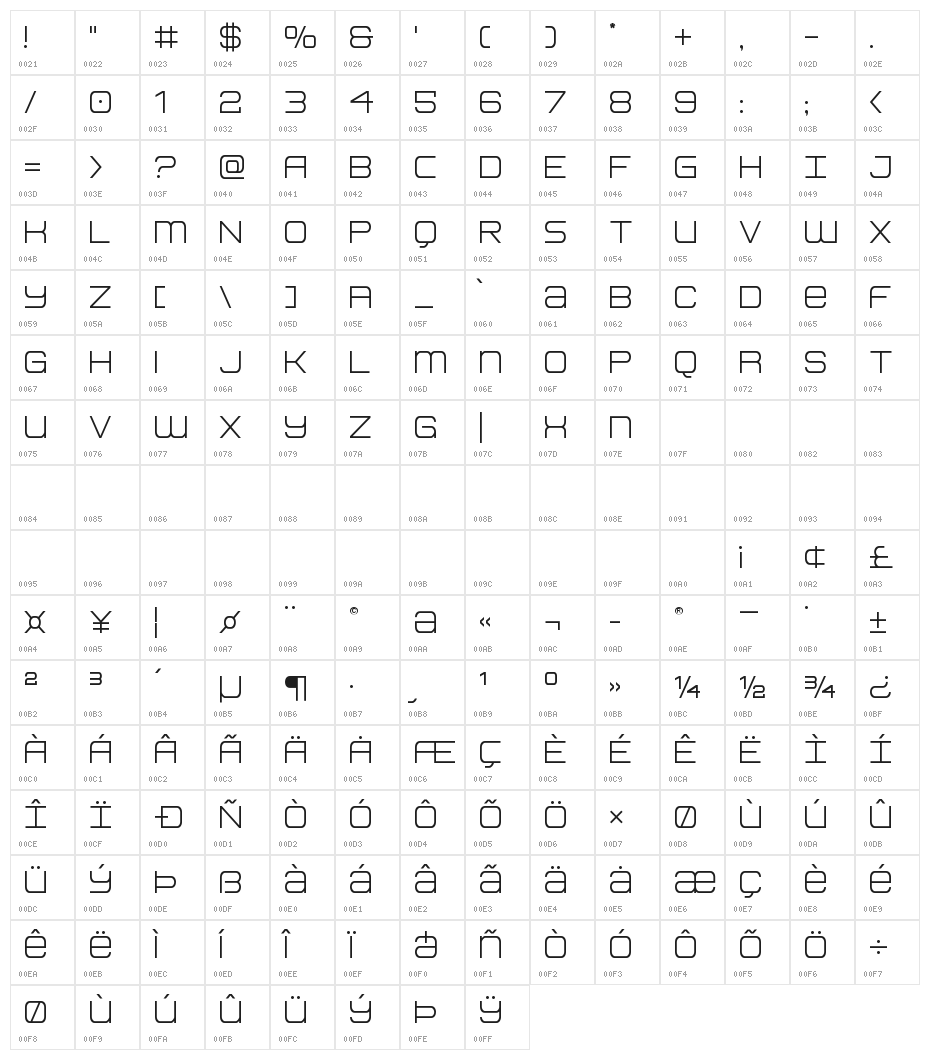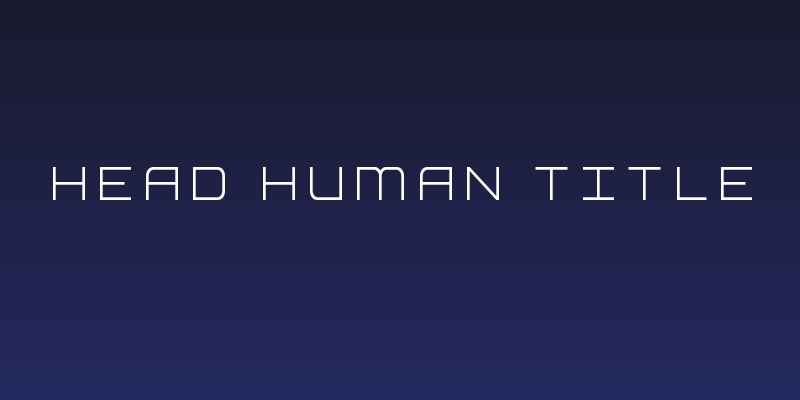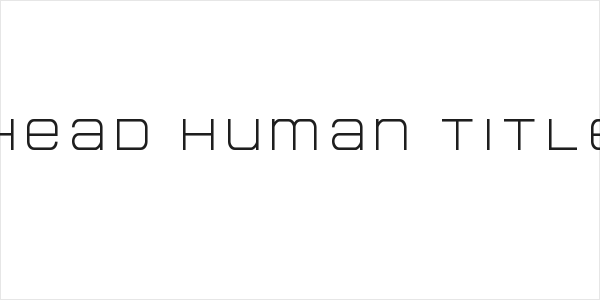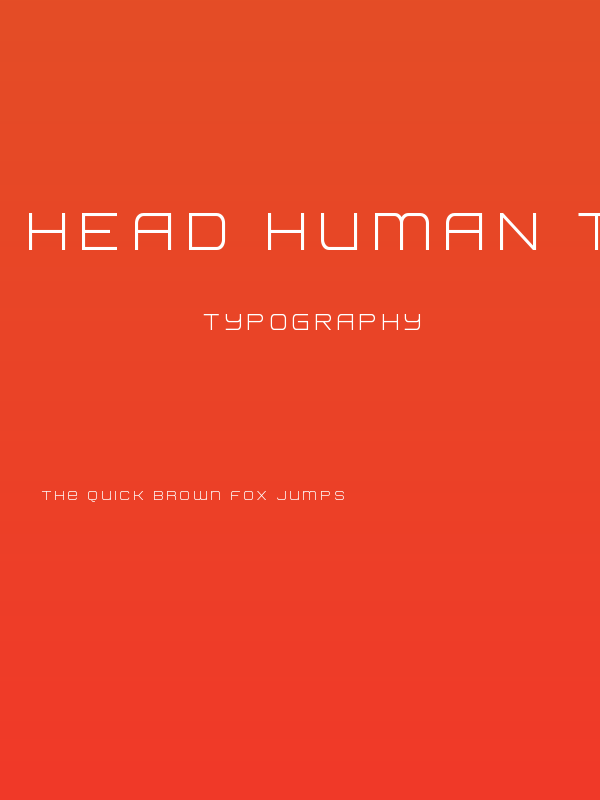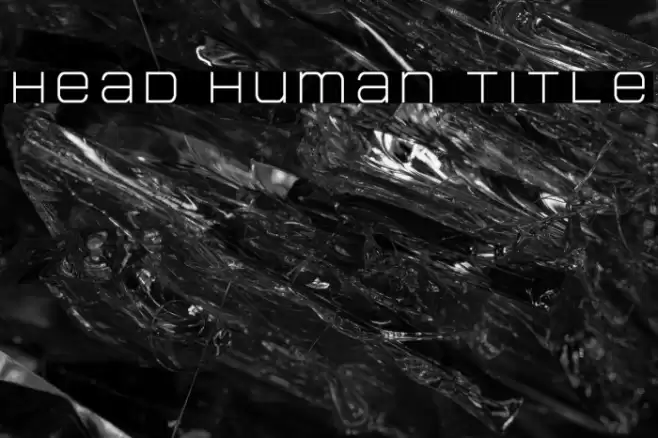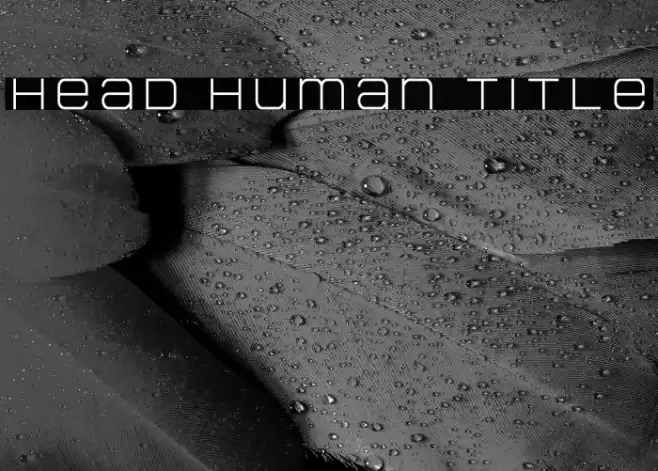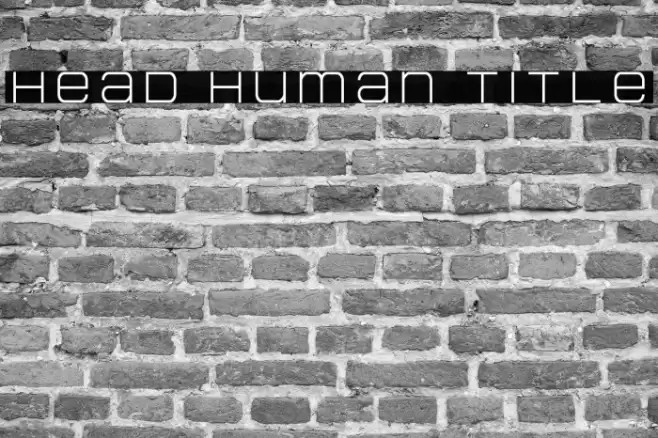
Head Human Title Font
This font features a modern and geometric design with clean, straight lines and rounded edges. The characters are uniform in width, giving it a monospaced appearance, though it maintains a sleek and futuristic style. The uppercase and lowercase letters are consistent in their geometric form, with a minimalistic aesthetic that emphasizes simplicity and clarity. The numerals and special characters follow the same design principles, ensuring a cohesive look across all glyphs. This font is ideal for projects that require a contemporary and technical feel, such as technology branding, digital interfaces, or modern advertising.
| Use Case | Headlines, Logos, Digital Interfaces |
| Proposed Projects | Ideal for technology branding, digital interfaces, modern advertising, and any project needing a contemporary look. |